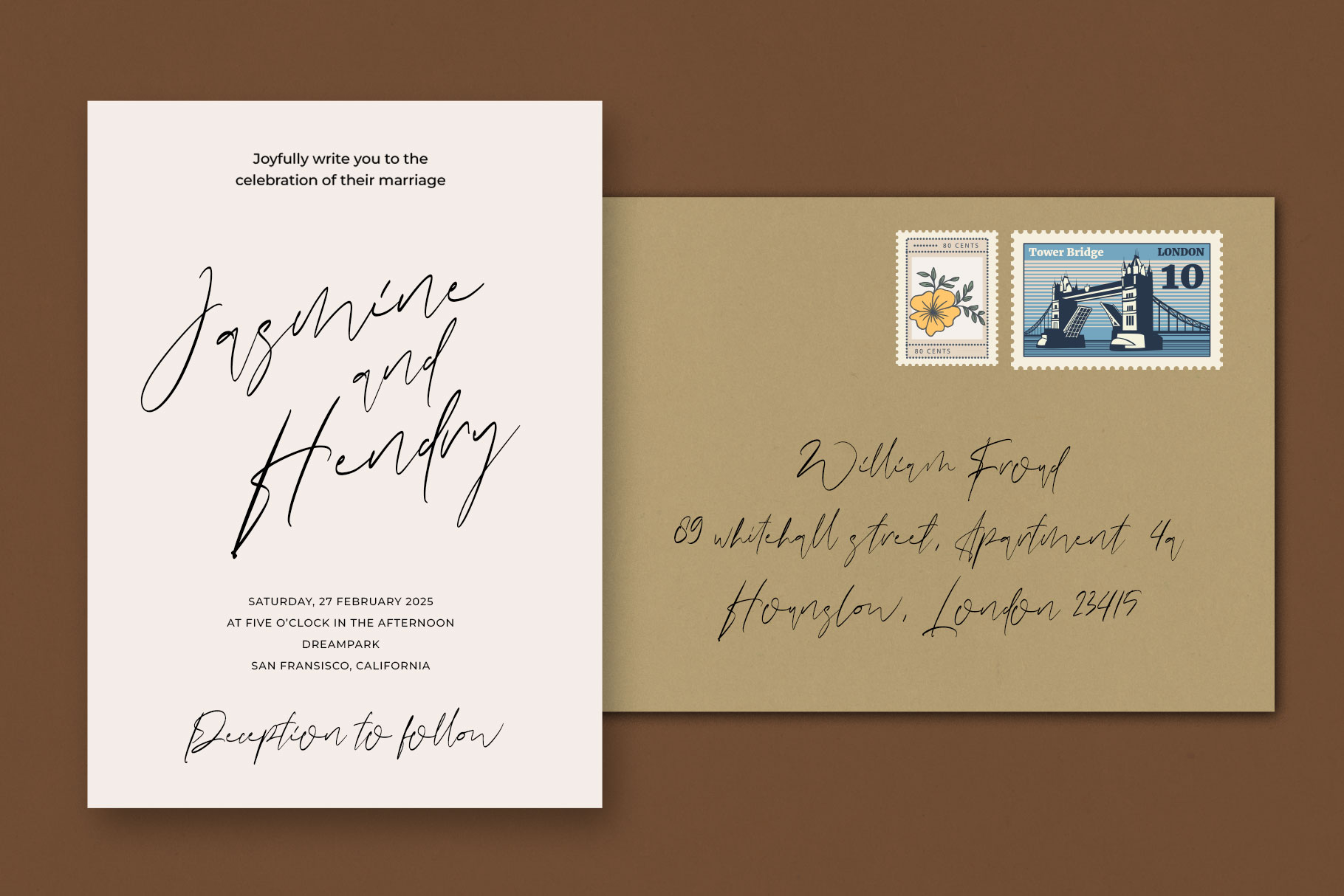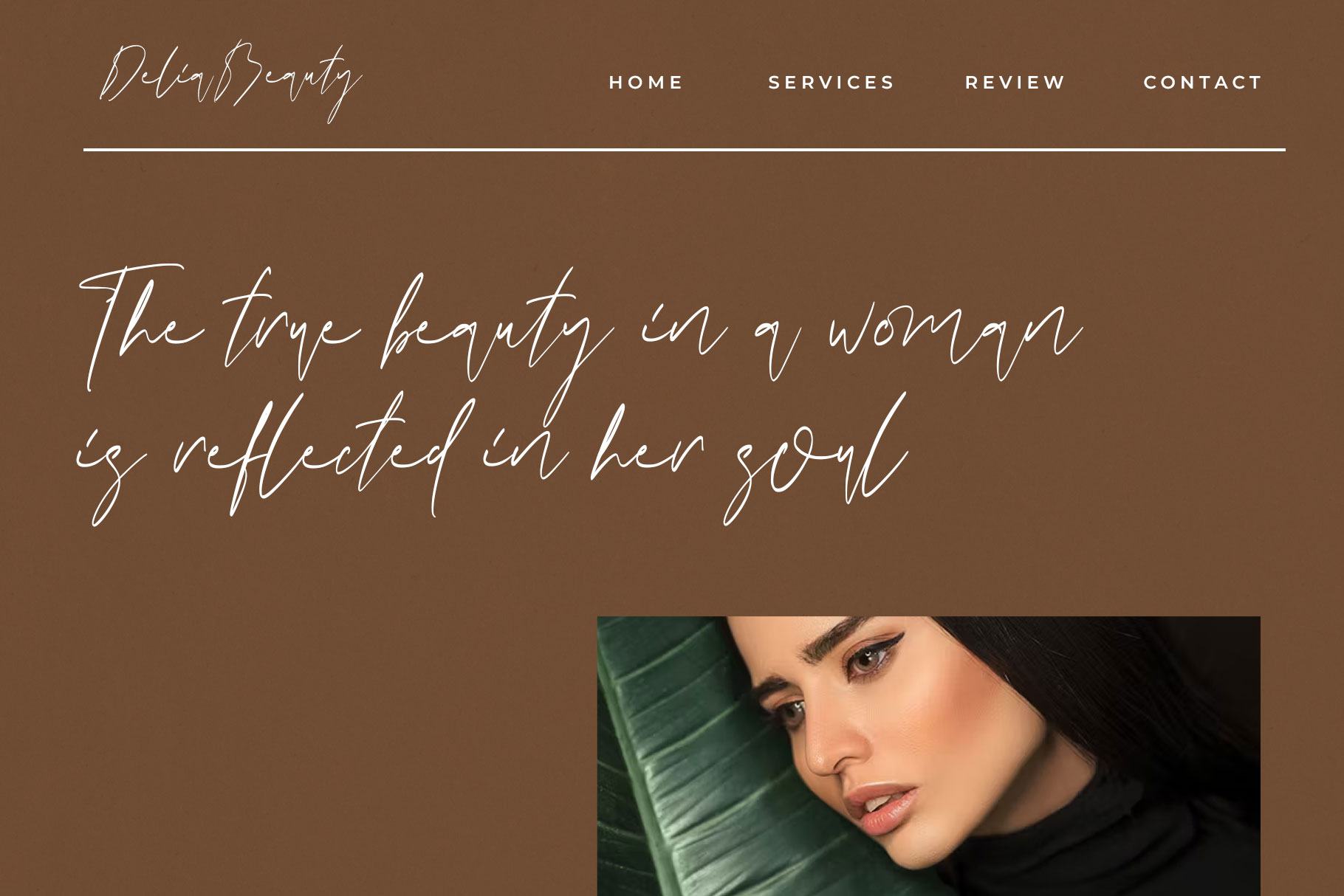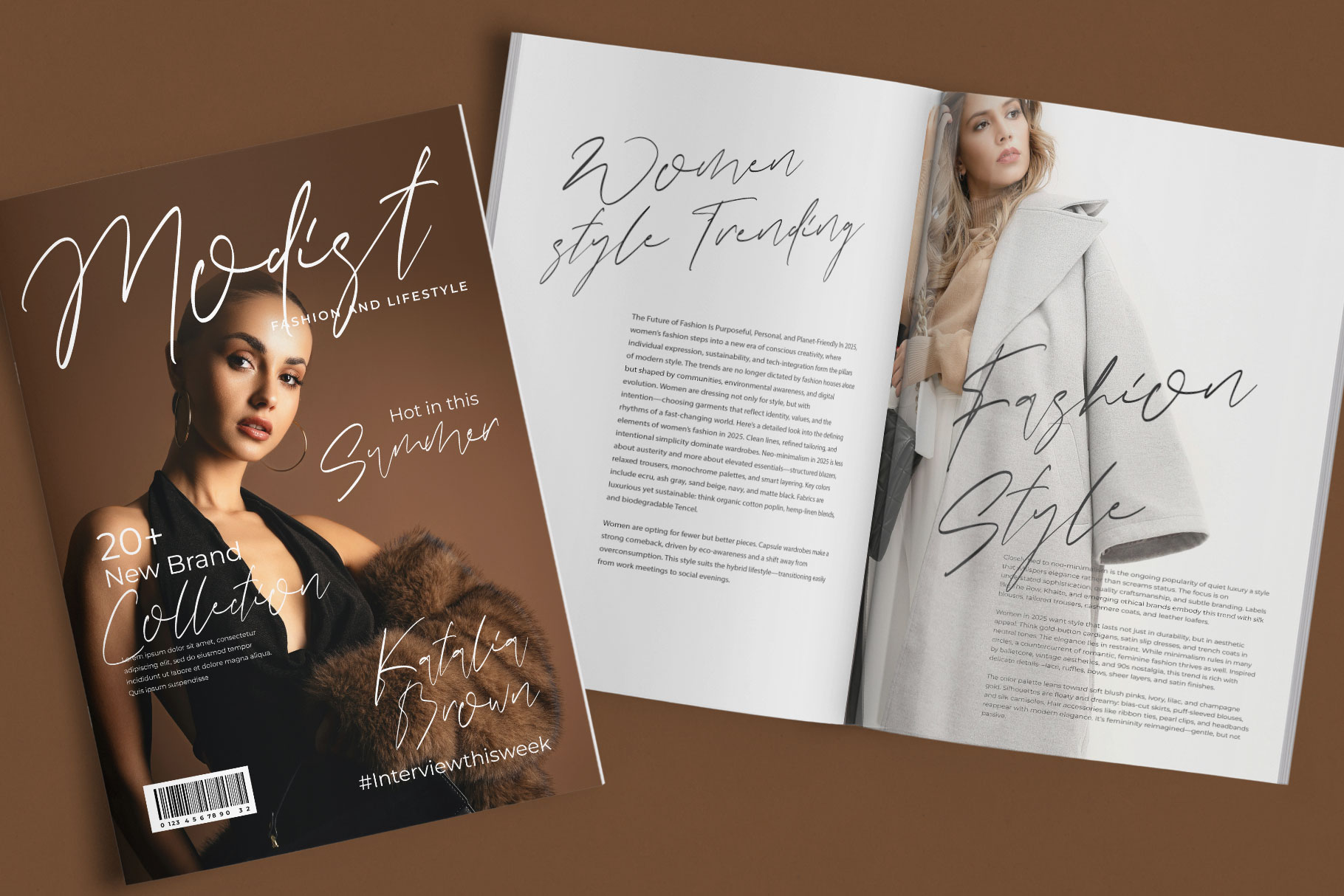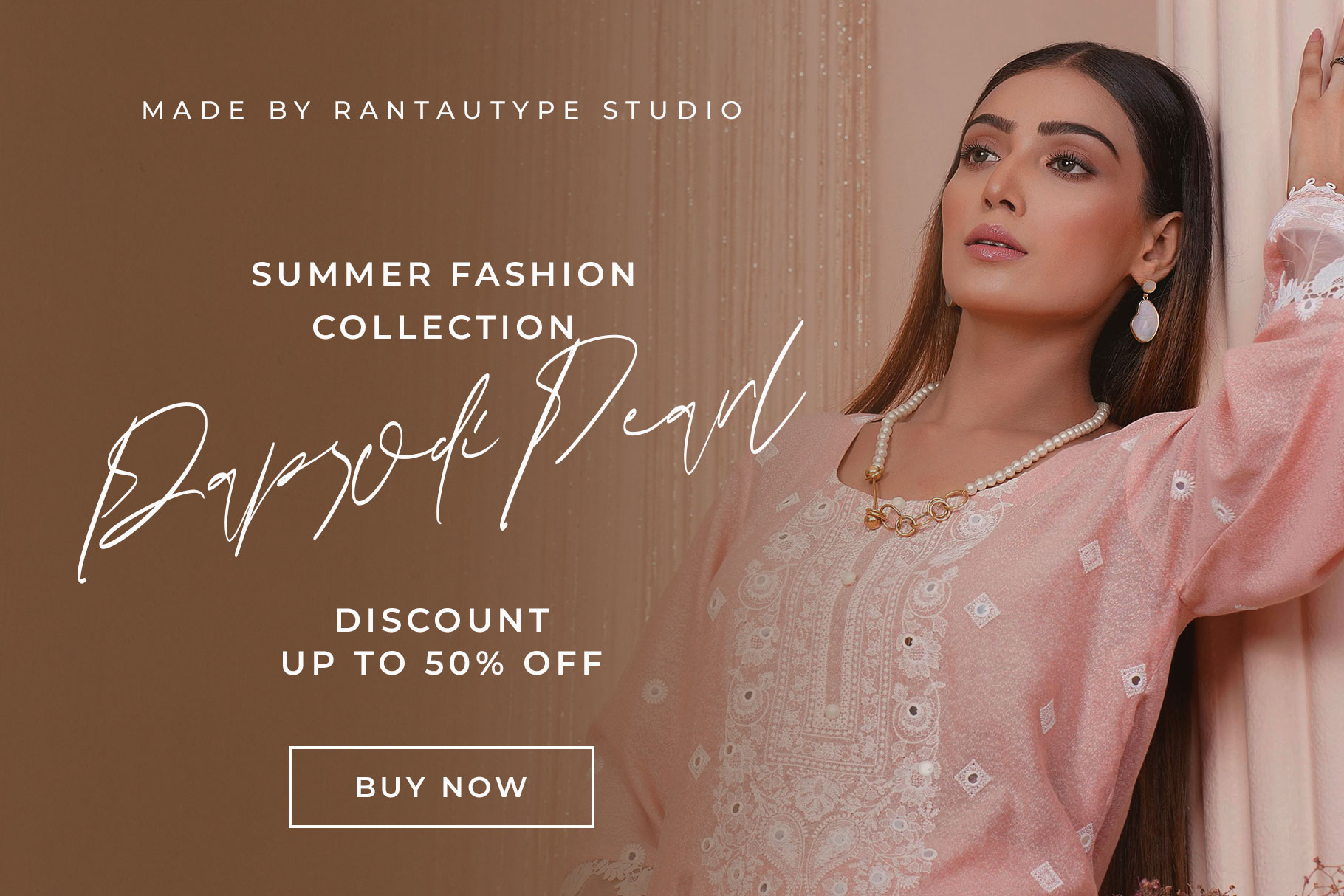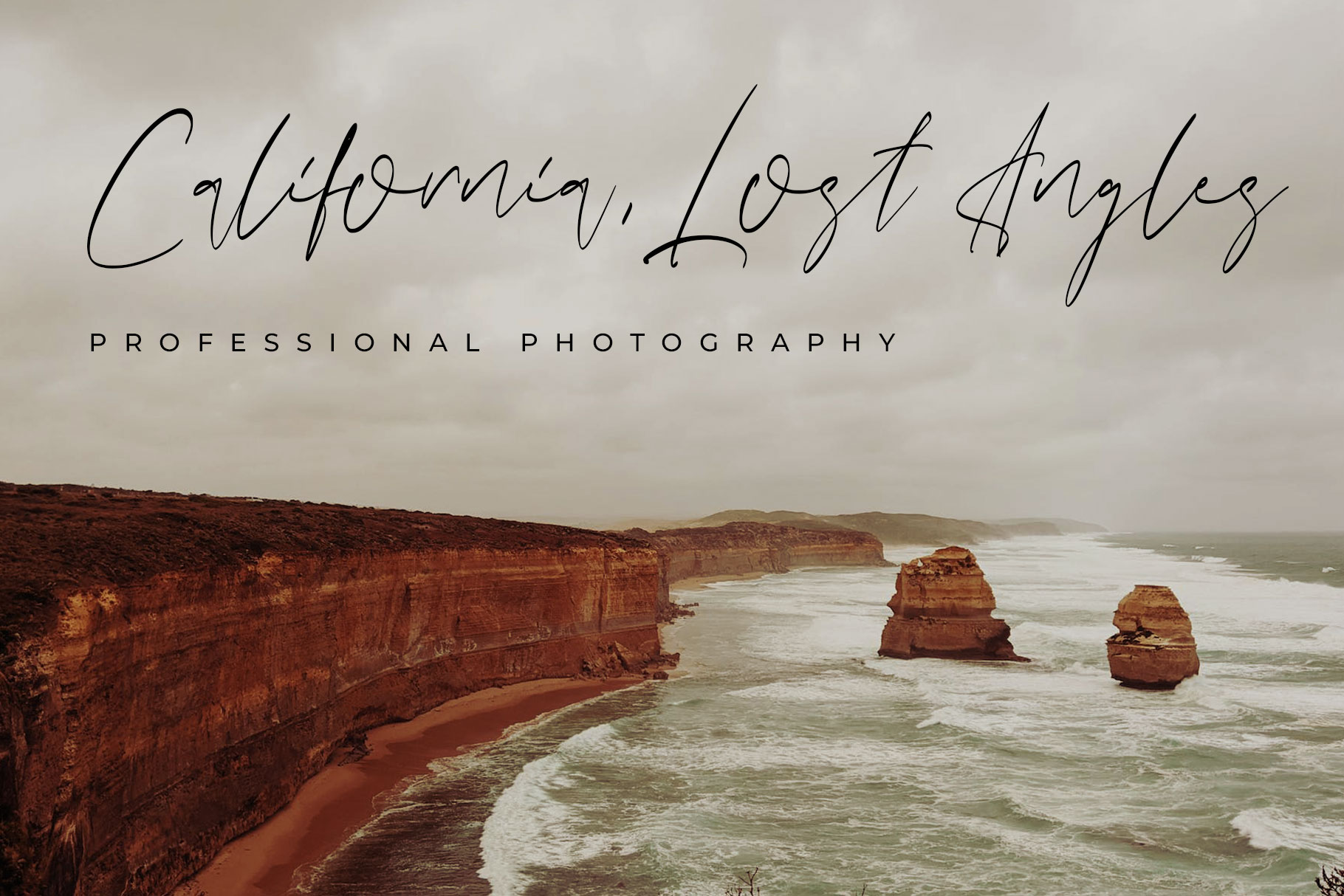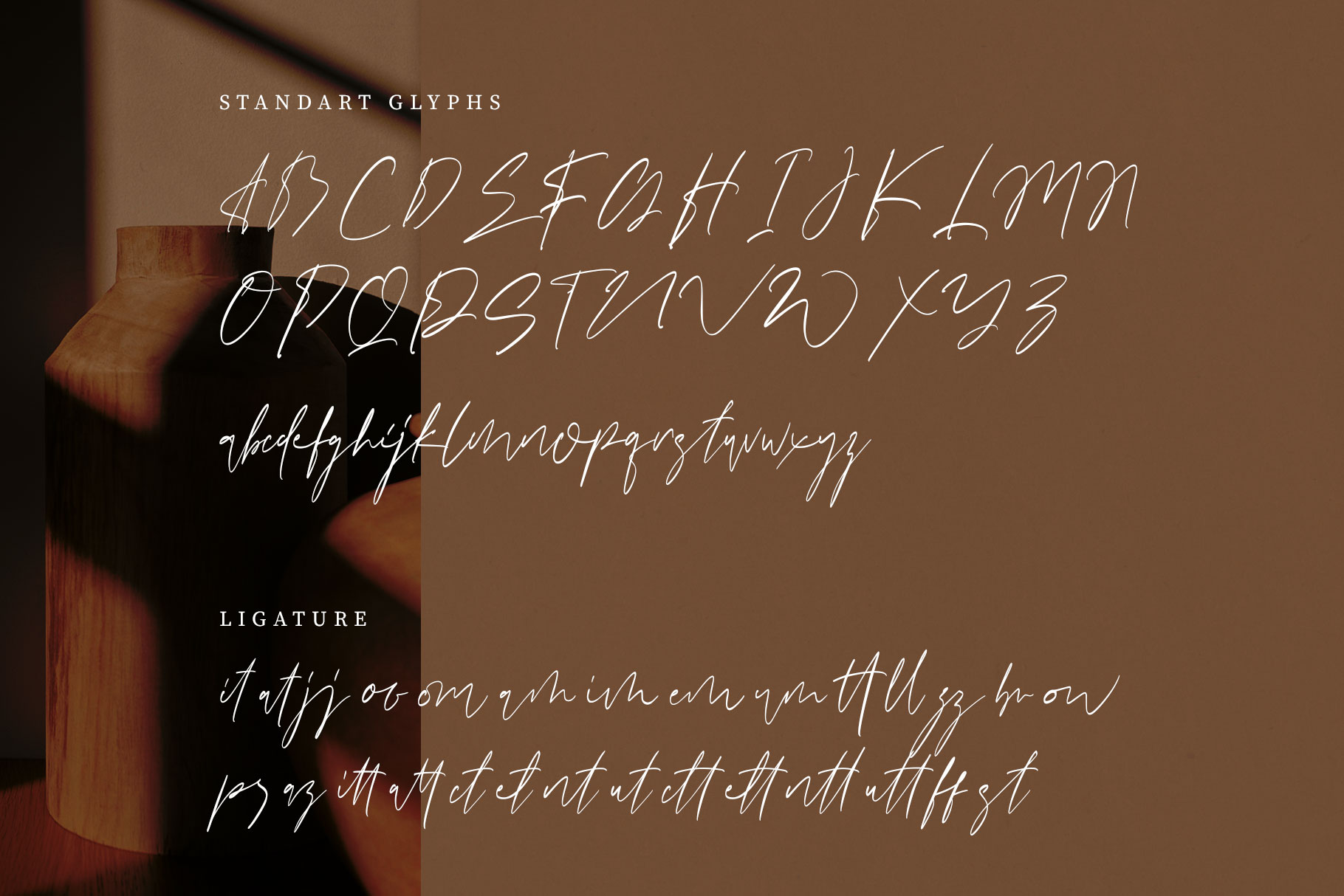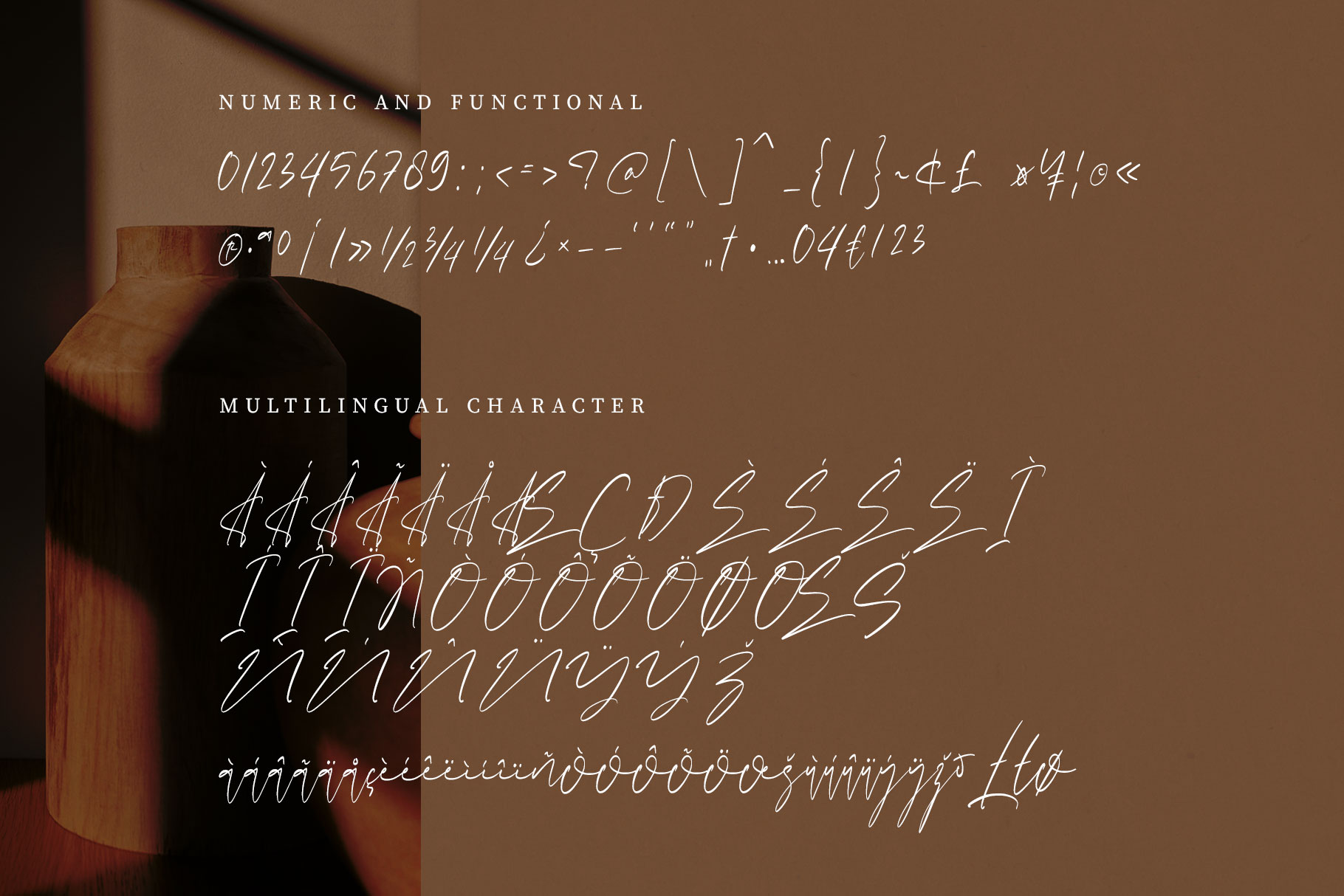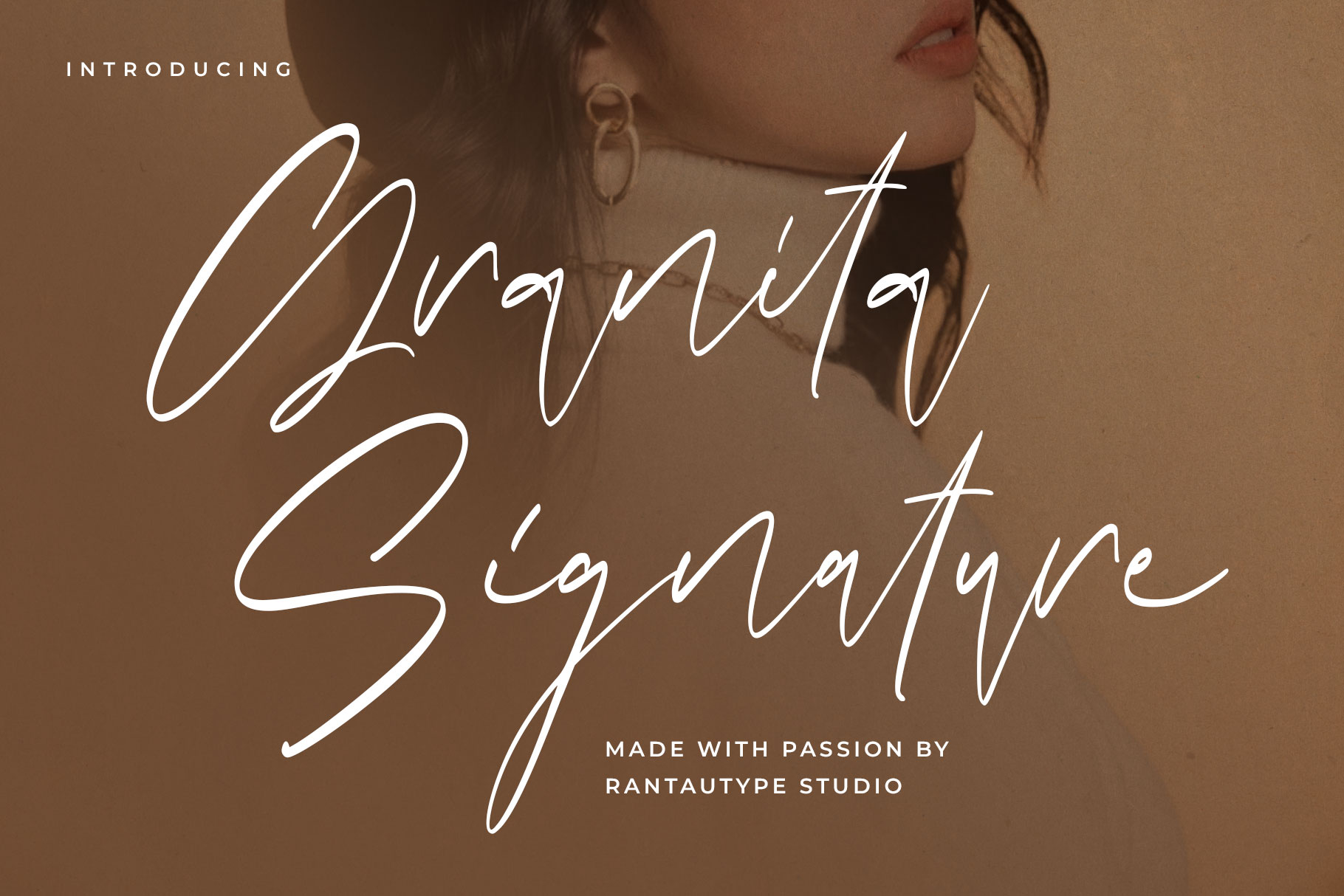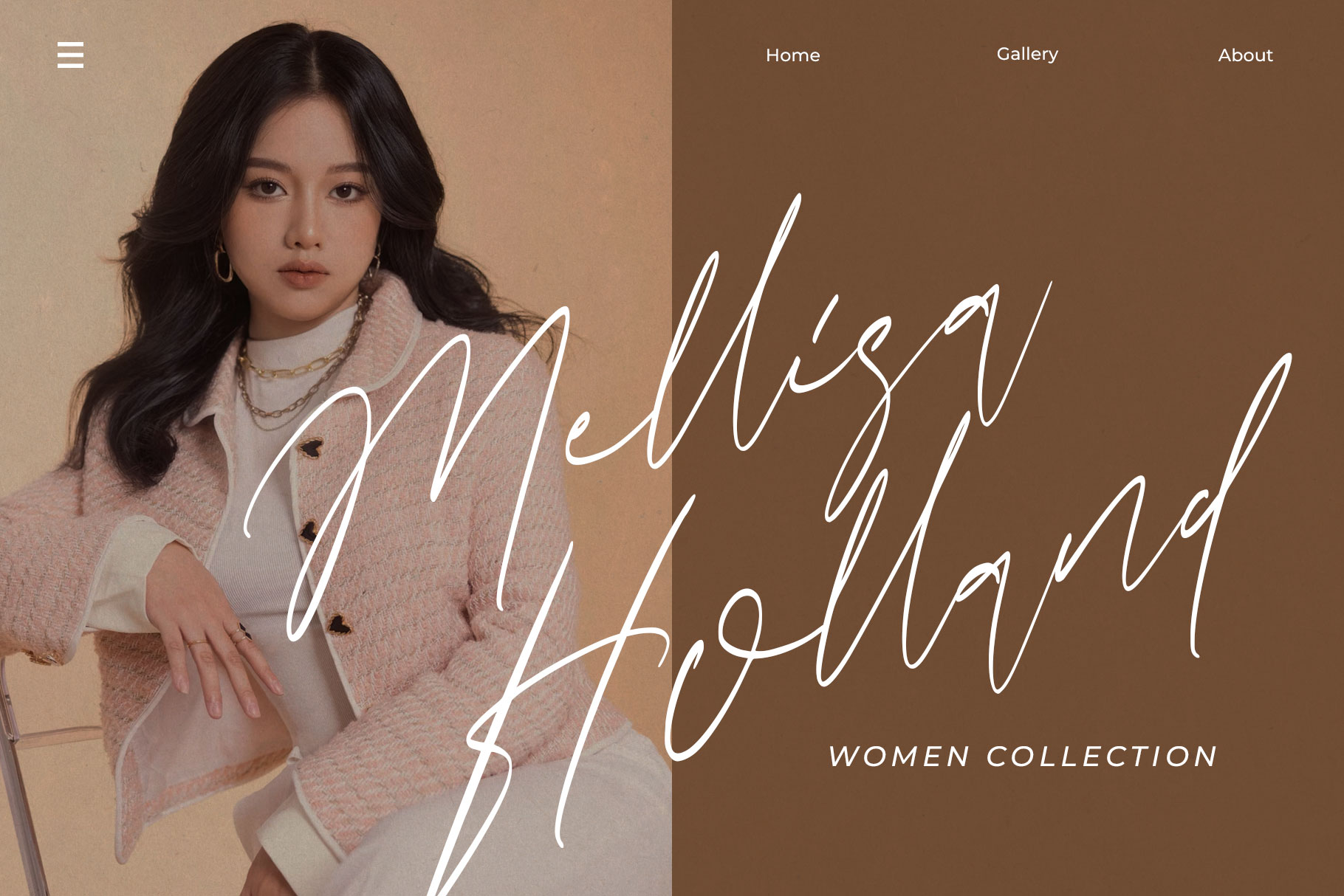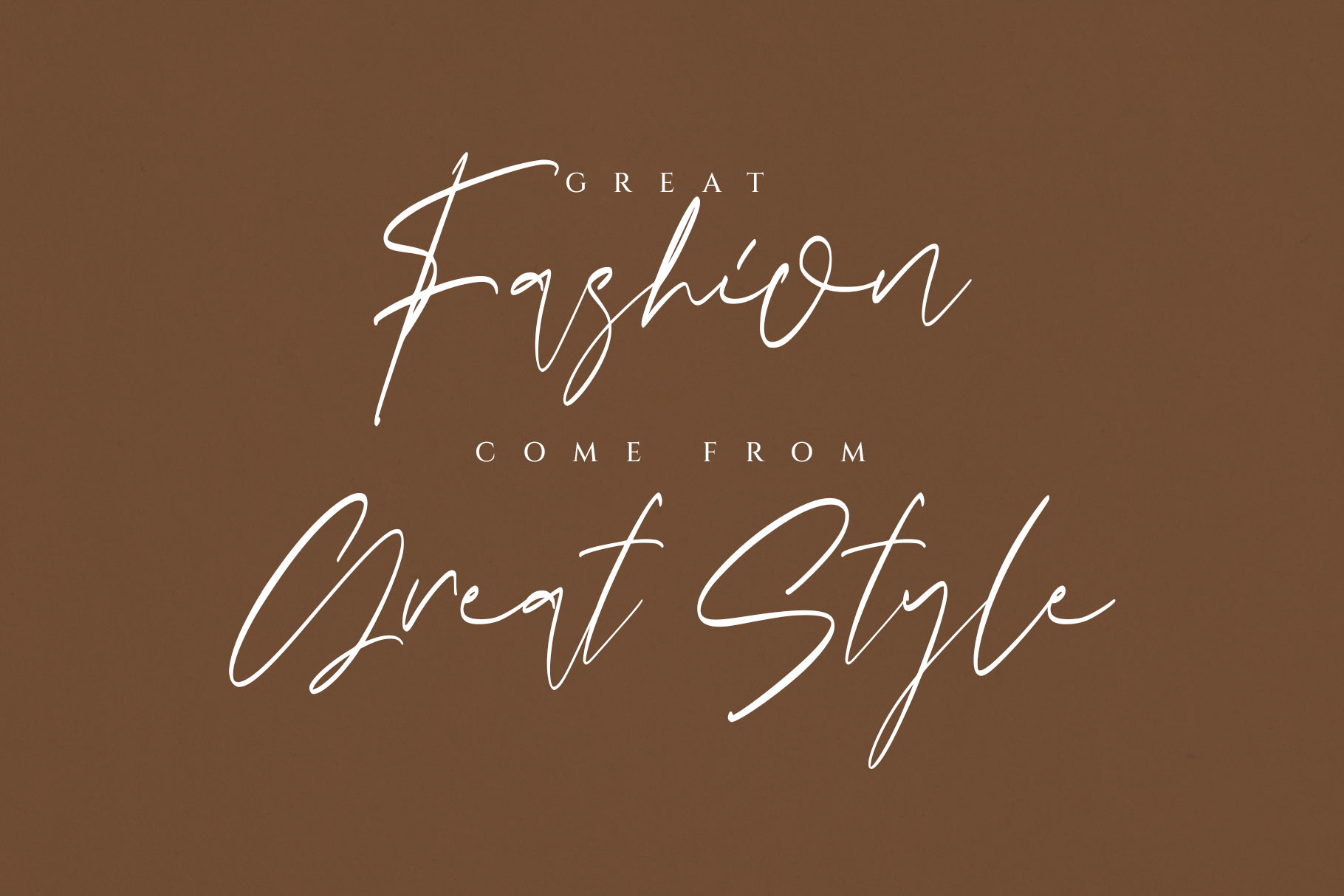
Granita Signature Font
Granita signature is stylish script font made by rantautype studio. We make this font look fashionabel and trendy. Granita signature is a perfectly choice for any creative endeavor, creating, modern, lifestyle design such as logotype, title, cover, branding, invitations, wedding designs, display and magazine, social media posts, advertisements, printed quotes, product packaging, corporate brand, product designs, labels, photography, watermarks, special events and any other project with handwritten feel.